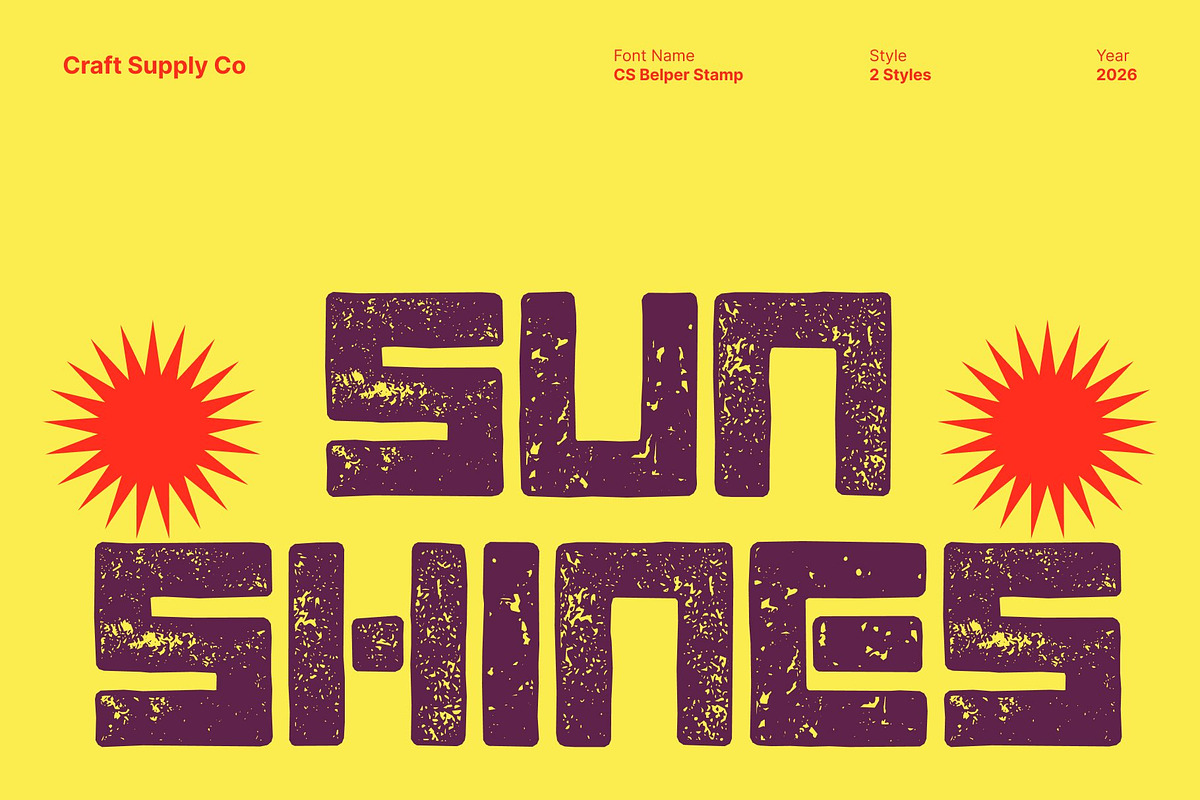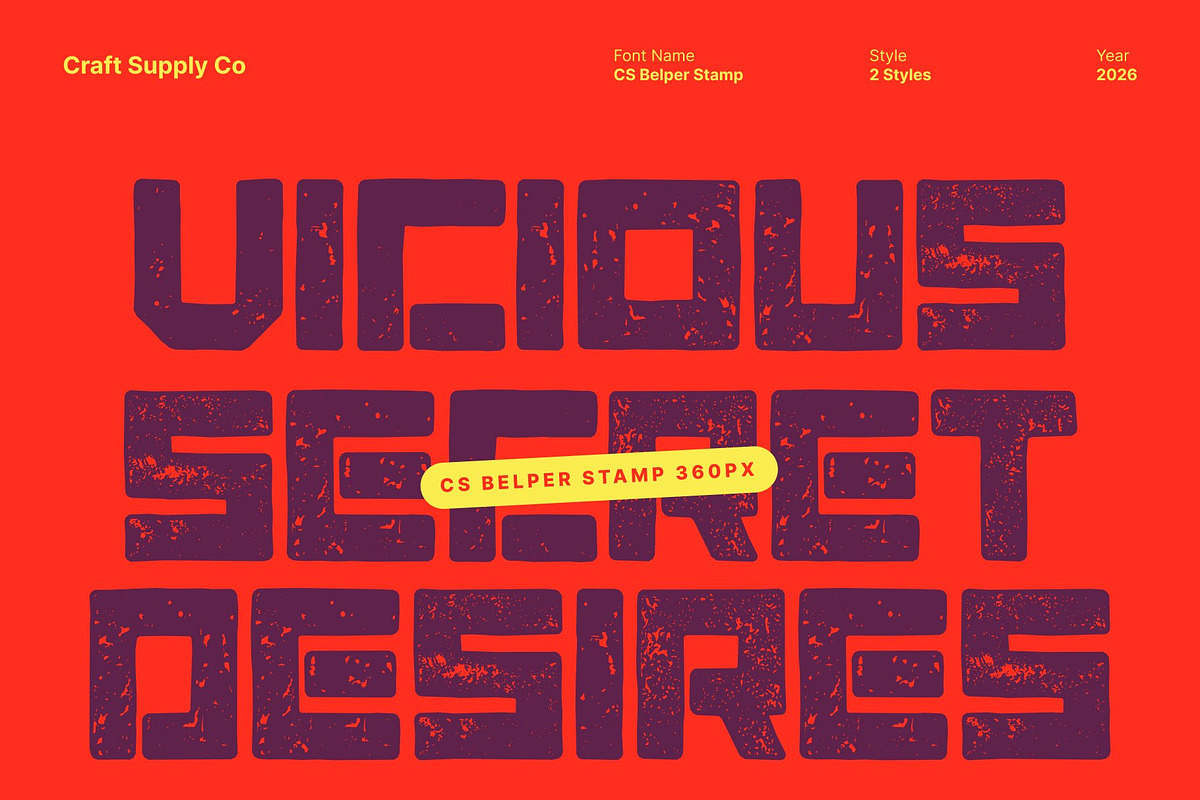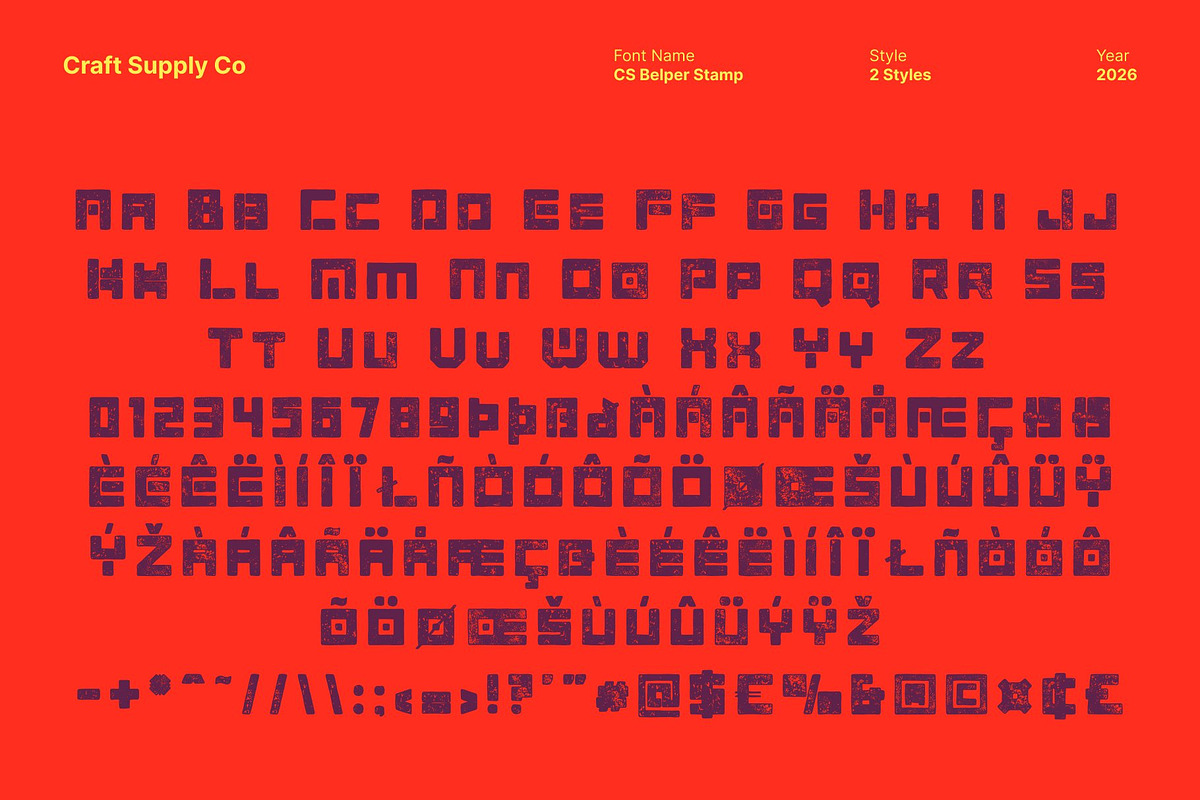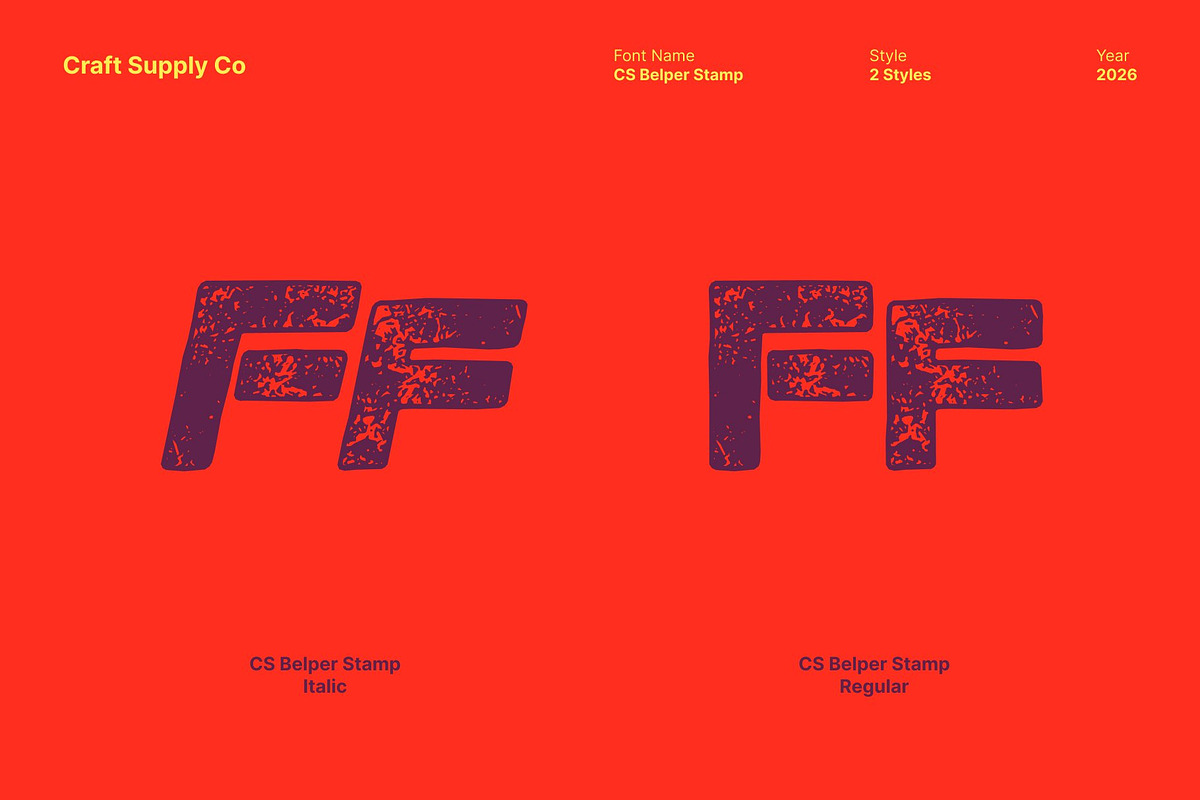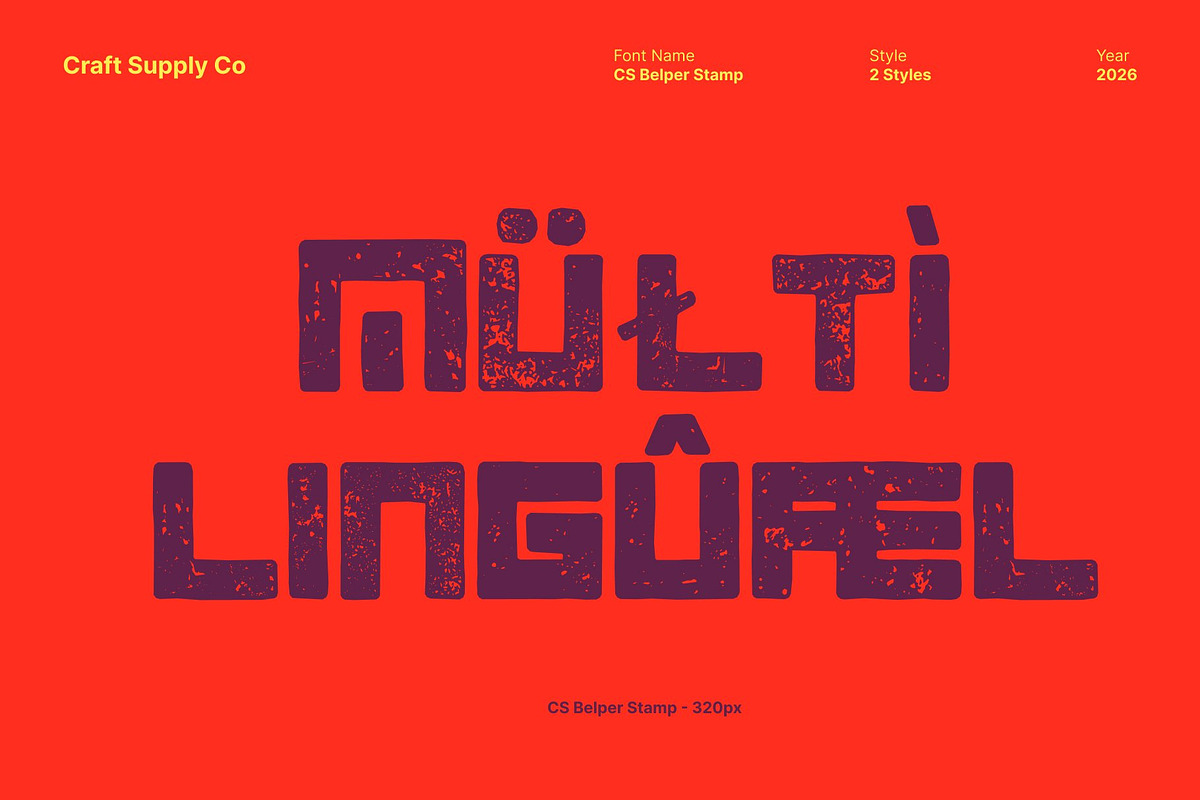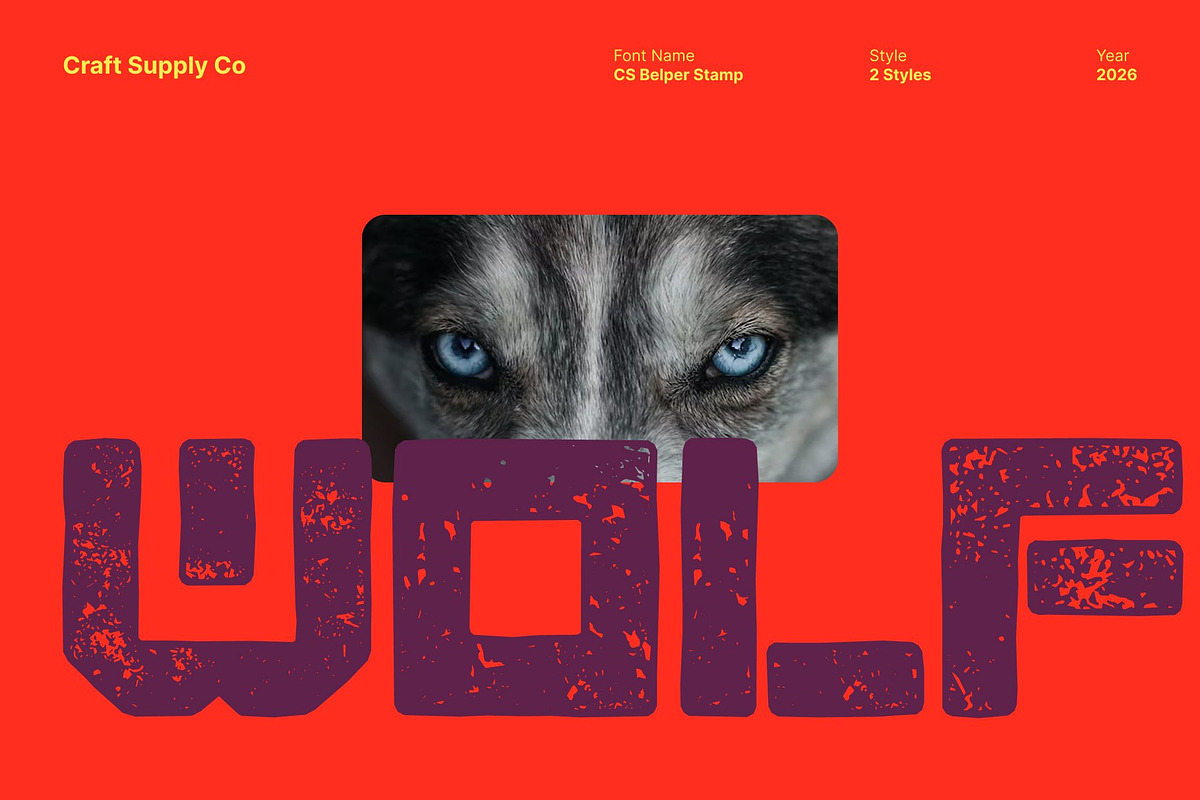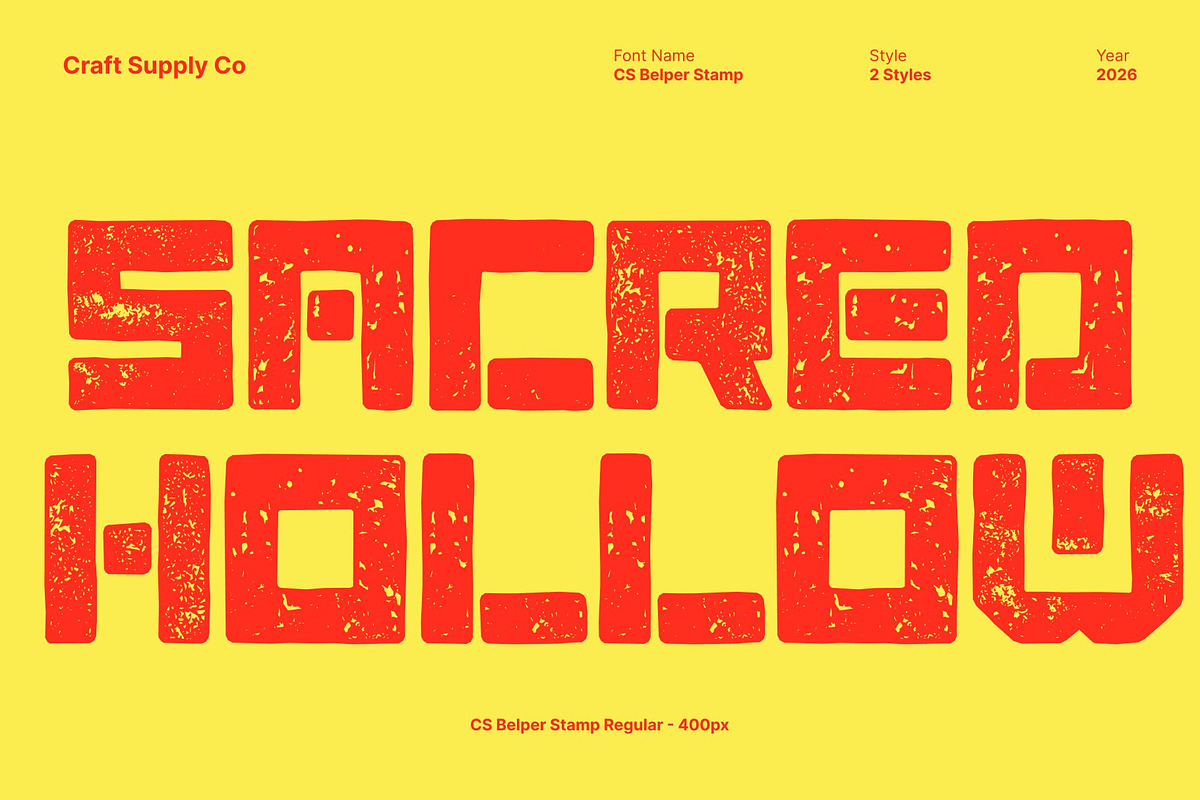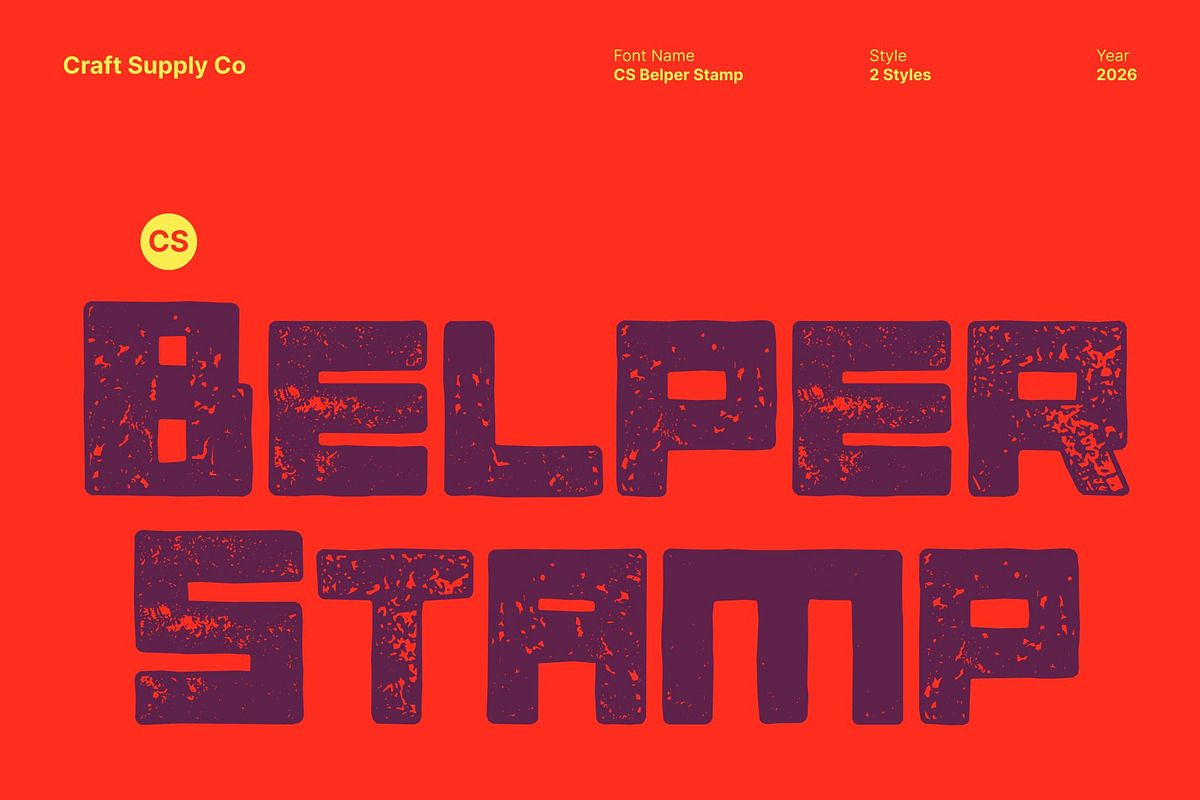
CS Belper Stamp
CS Belper Stamp – Futuristic Power with Modern Energy
Futuristic Display Font with Techno Influence This is a bold futuristic display font built to radiate modern energy and visual intensity. Rooted in a strong techno foundation, it features sharp forms, assertive structures, and experimental details that set it apart instantly. Enhanced with a stamp effect, the font gains textured depth and subtle wear, creating a striking contrast between futuristic precision and old-print character.
Bold Forms with Industrial, Brutalist Texture Inspired by industrial systems and brutalist design principles, the bold letterforms emphasize solid strokes, rigid geometry, and unapologetically strong shapes. The stamped texture introduces an aged, tactile quality that reinforces its mechanical and urban presence, giving the font a raw, powerful, and uncompromising personality.
Experimental Design with Hand-Pressed Character Pushing beyond conventional typography, this font explores unconventional proportions and dynamic constructions. The addition of a stamp effect adds an artistic, handcrafted layer to its experimental design, making the font feel both innovative and grounded. This blend of modern expression and vintage texture makes it ideal for designers seeking bold, unconventional visual statements.
Ideal for Branding, Logos, and High-Impact Posters Designed for high-impact applications, this font excels in branding, logos, poster designs, and promotional visuals that demand a strong identity. Its fusion of futuristic techno aesthetics, industrial brutality, and stamped vintage texture makes an excellent choice for technology brands, creative studios, music events, fashion campaigns, and experimental projects.
CS Belper Stamp Regular
CS Belper Stamp Italic